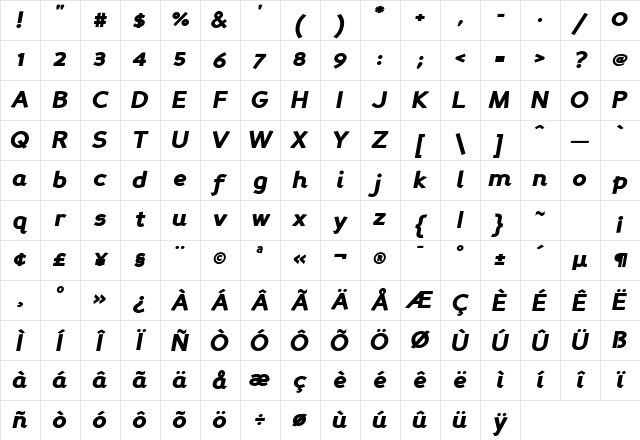
Perspective Sans Black Italic
Perspective Sans Black Family
Design Context for Perspective Sans Black
Perspective Sans Black is a composed and adaptable typeface that performs quietly and consistently across a wide range of design contexts. The slanted form adds forward momentum and visual energy.
Pro Tip: Use Perspective Sans Black for emphasis, pull quotes, and subheadings where its slanted energy can add rhythm to the layout.